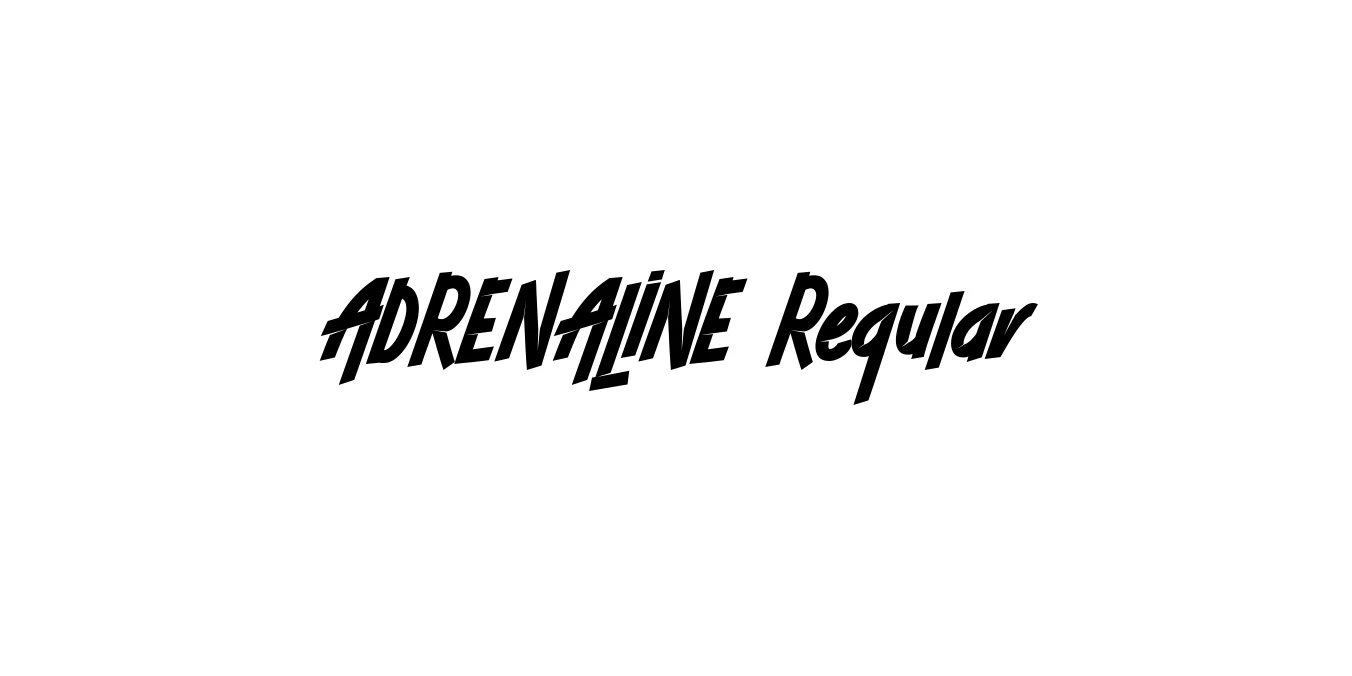
ADRENALINE Regular
Designed by T. Christopher Smith
| Category | Display / Sport |
| Designer | T. Christopher Smith |
Adrenaline Regular is a high-energy, display typeface designed to evoke a sense of speed, motion, and intensity. Characterized by its bold strokes and forward-slanting appearance, it captures the essence of extreme sports and fast-paced automotive branding. The font's wide stance and sharp terminals make it highly legible even in high-impact environments where visual dominance is a priority.
Originally popularized in the action-graphics scene, Adrenaline has remained a staple for designers working in the gaming industries and apparel design. Its versatility allows it to be used for everything from digital interfaces to printed posters where a sense of urgency or excitement is required. The typeface is particularly effective when paired with vibrant color palettes or metallic textures to enhance its aerodynamic aesthetic.
ADRENALINE Regular Best Uses
Perfect for team logos, jerseys, and athletic gear.
Ideal for high-impact posters and extreme sports event banners.
Great for UI elements in racing or high-octane action games.
Suited for bold graphic t-shirts and modern streetwear.